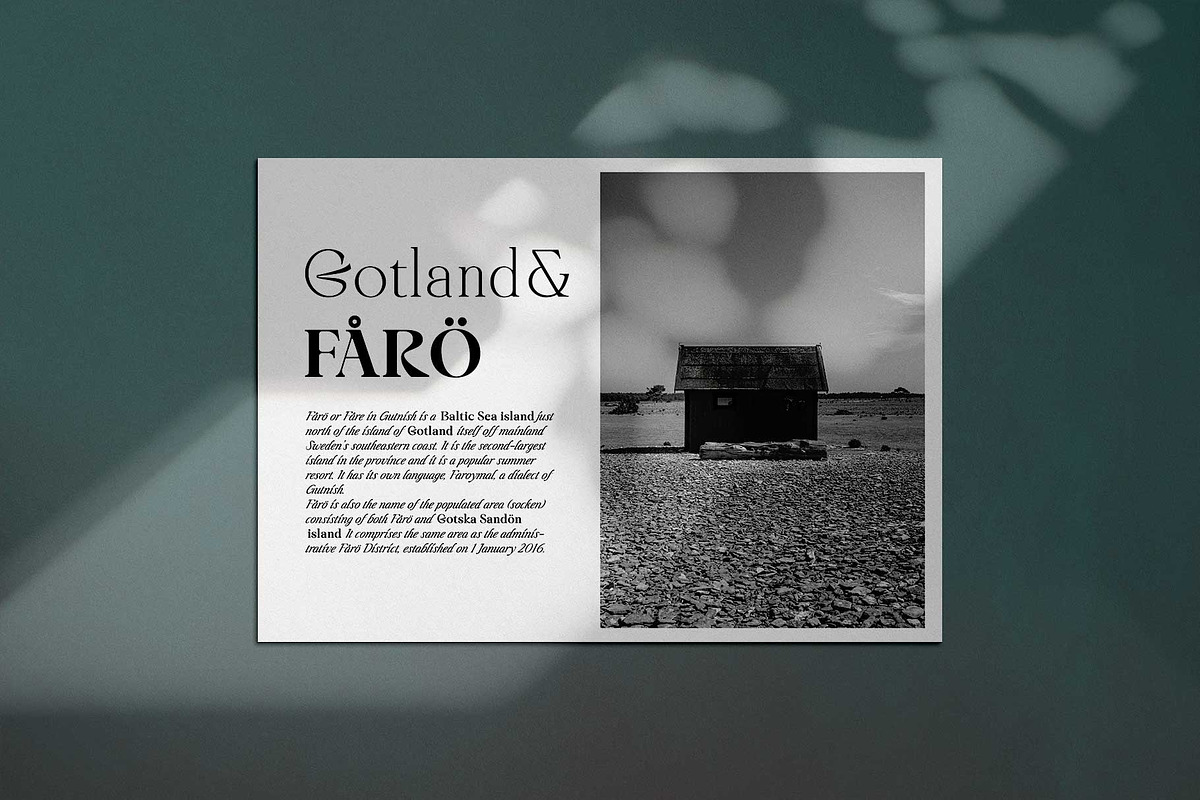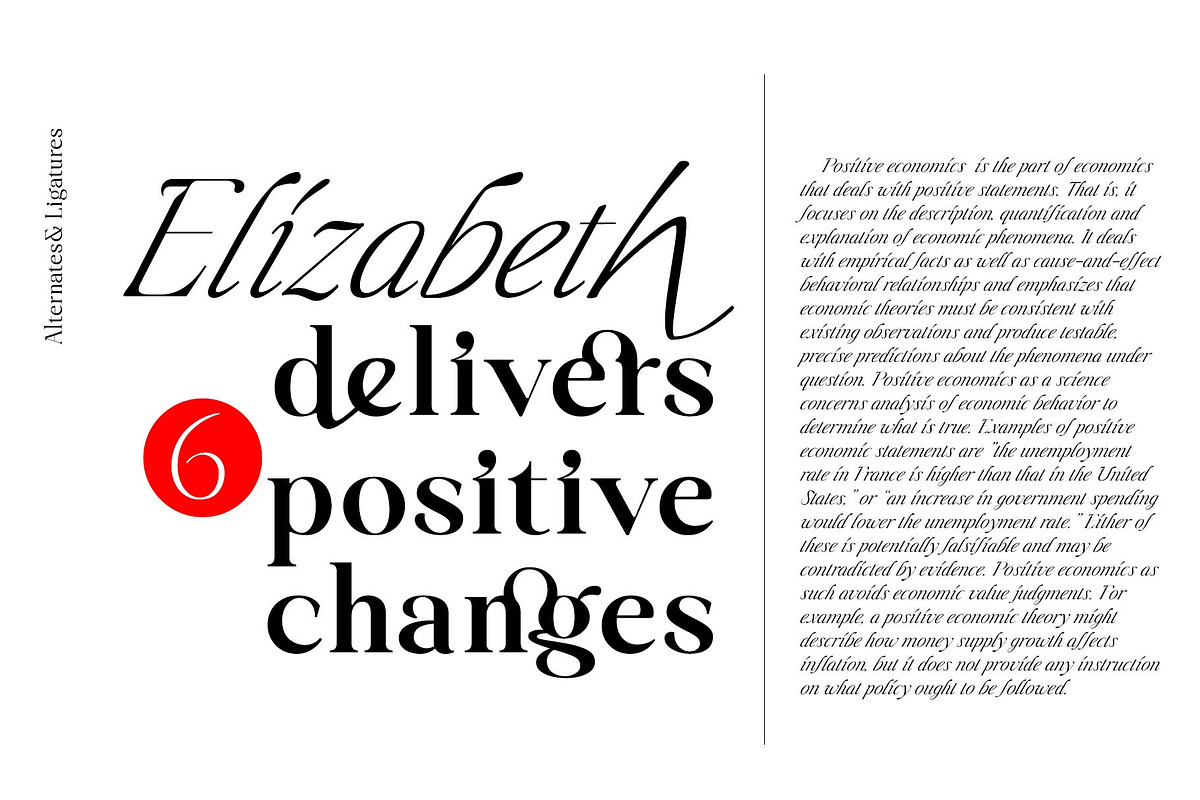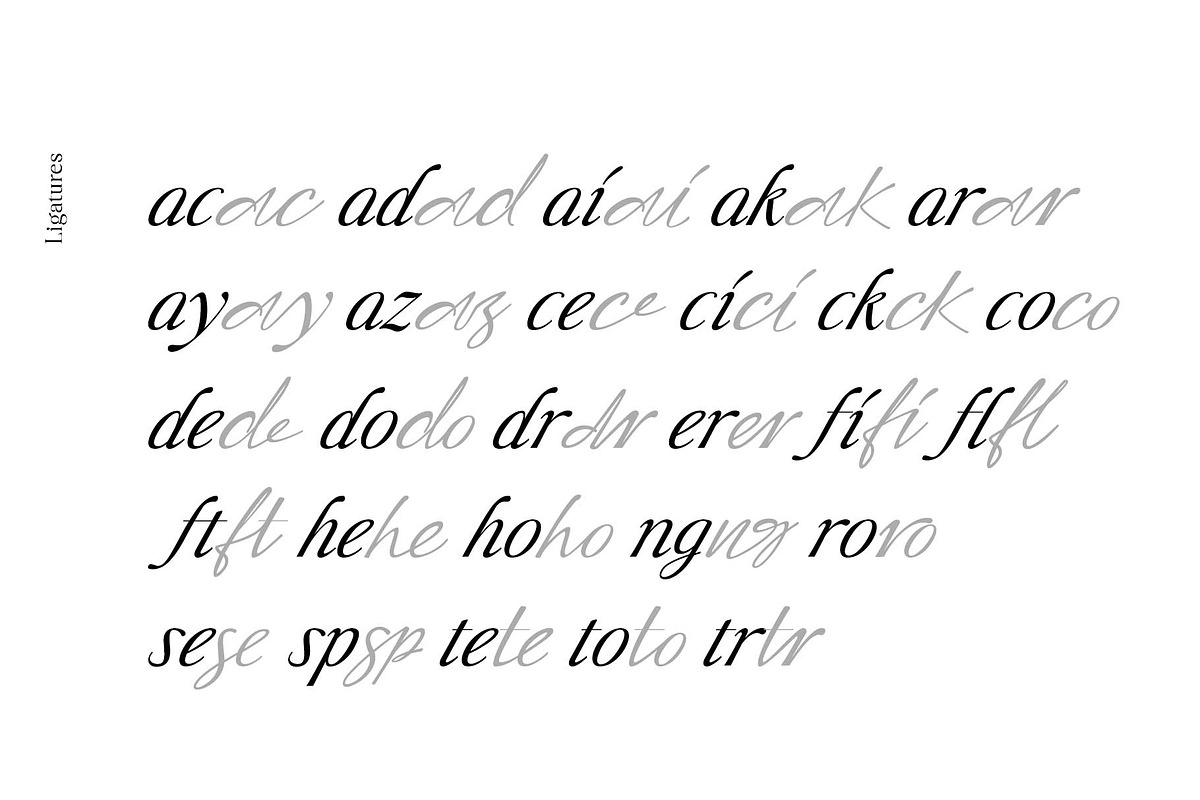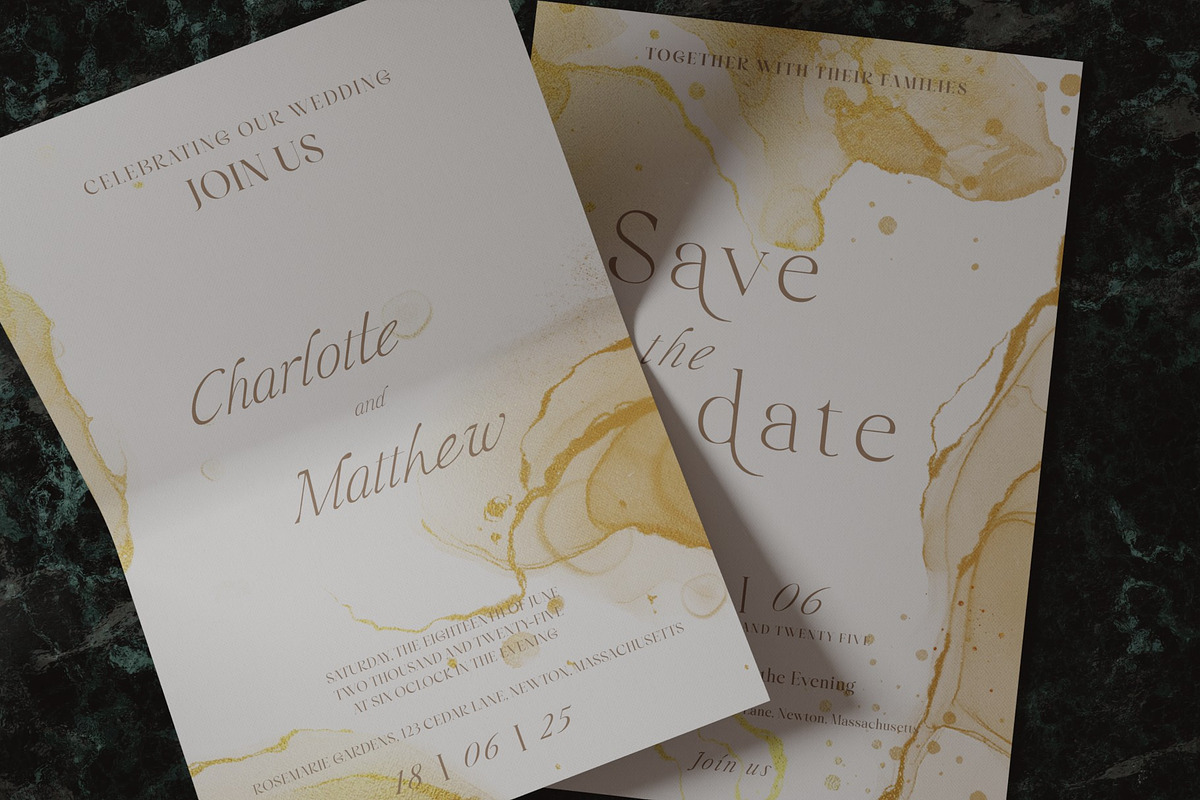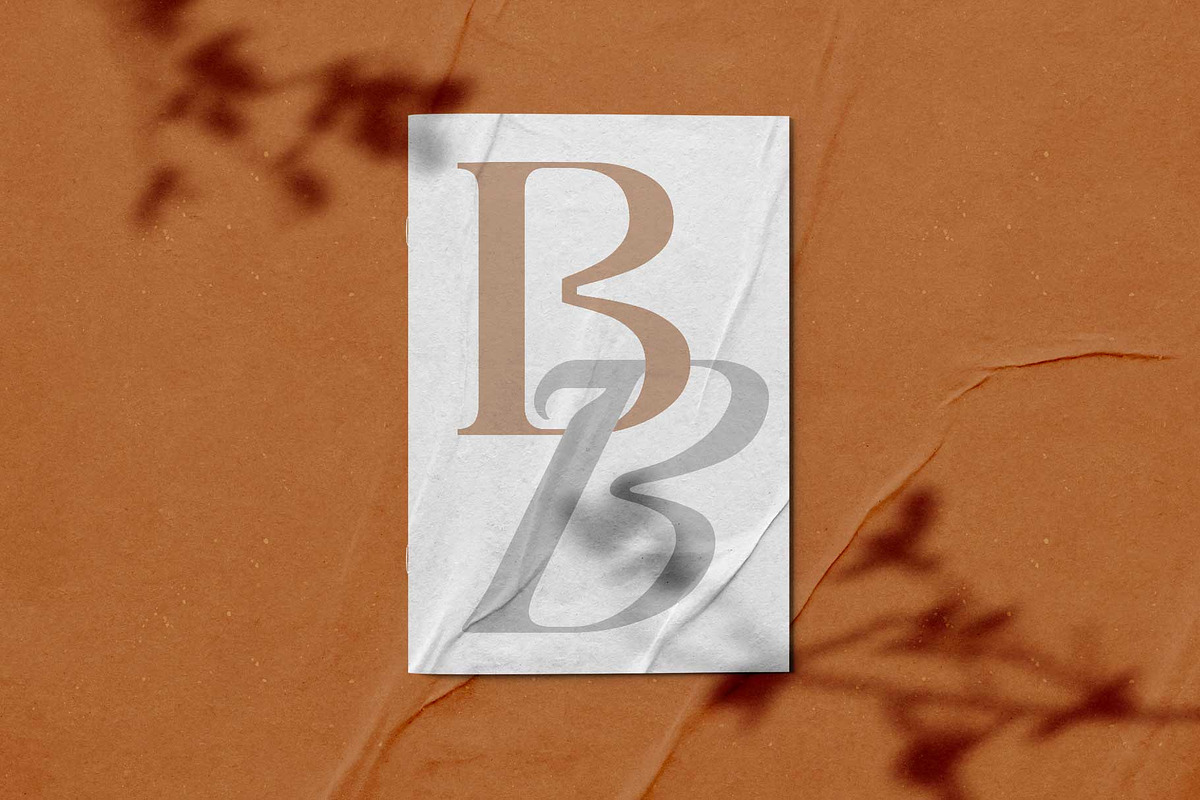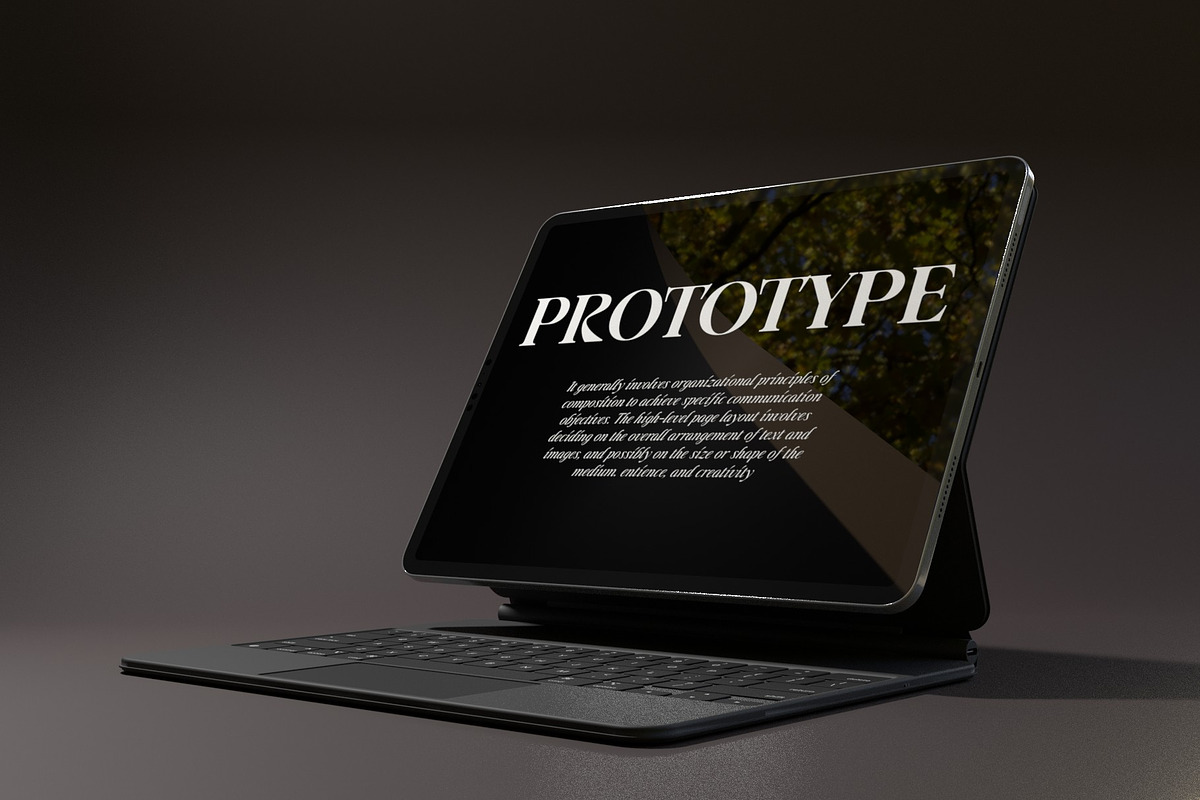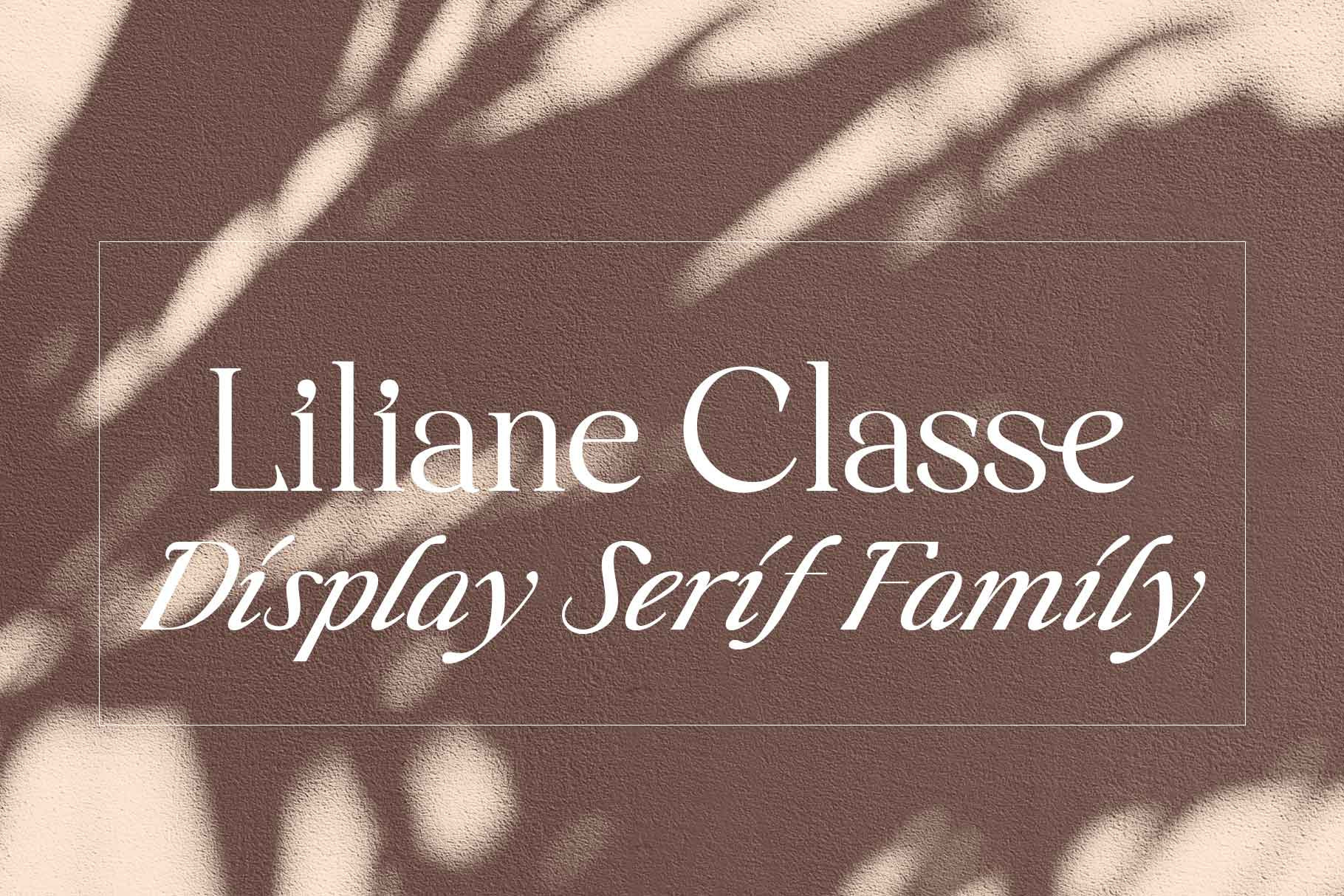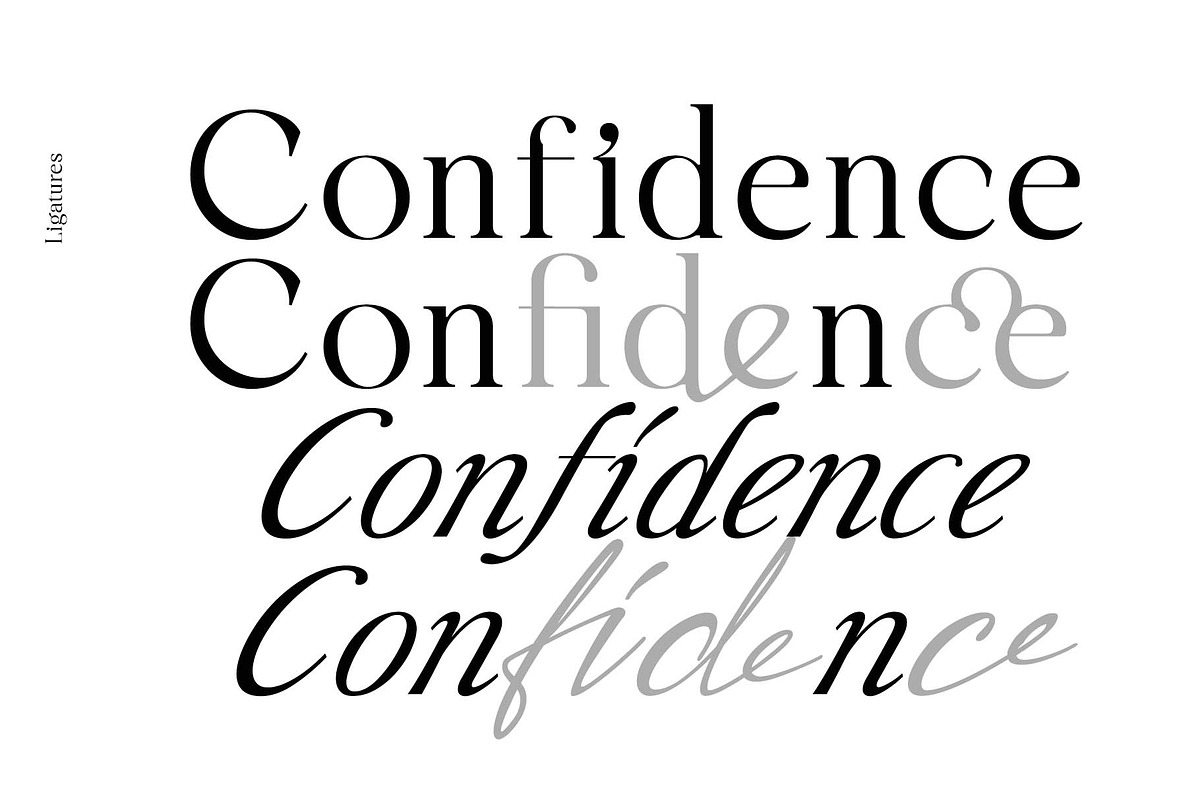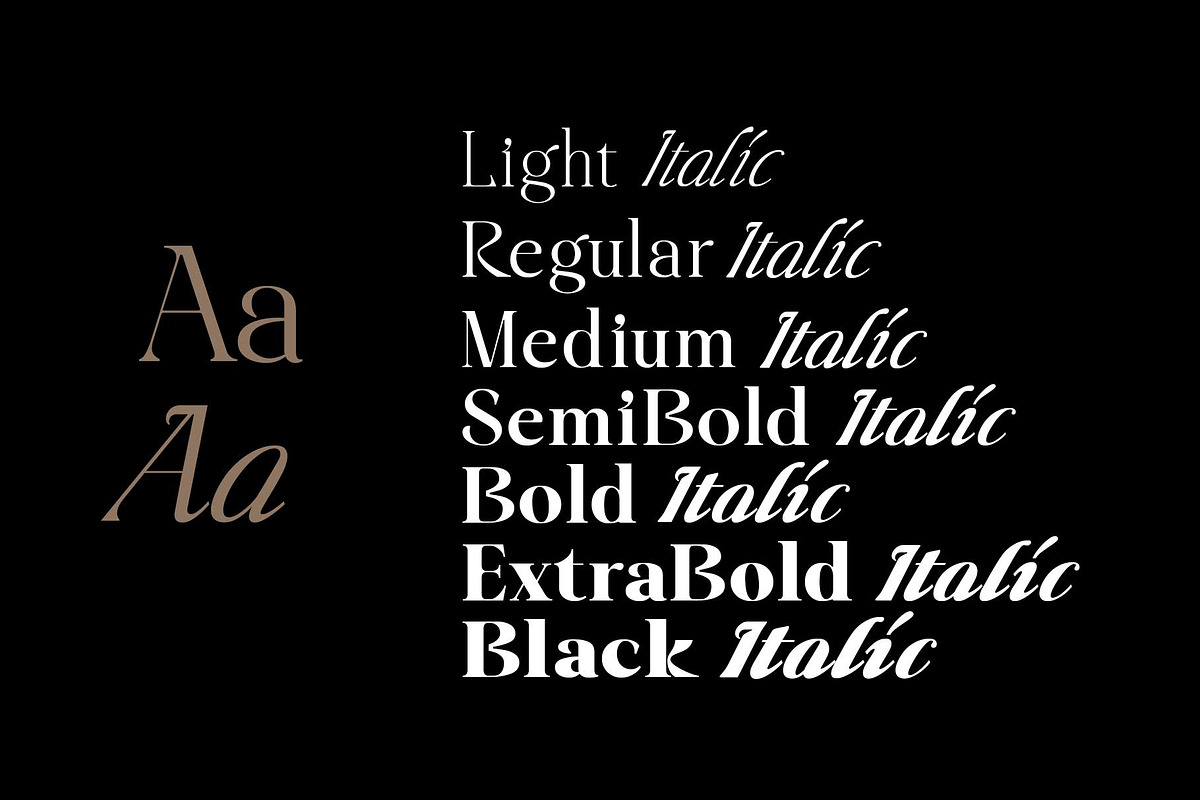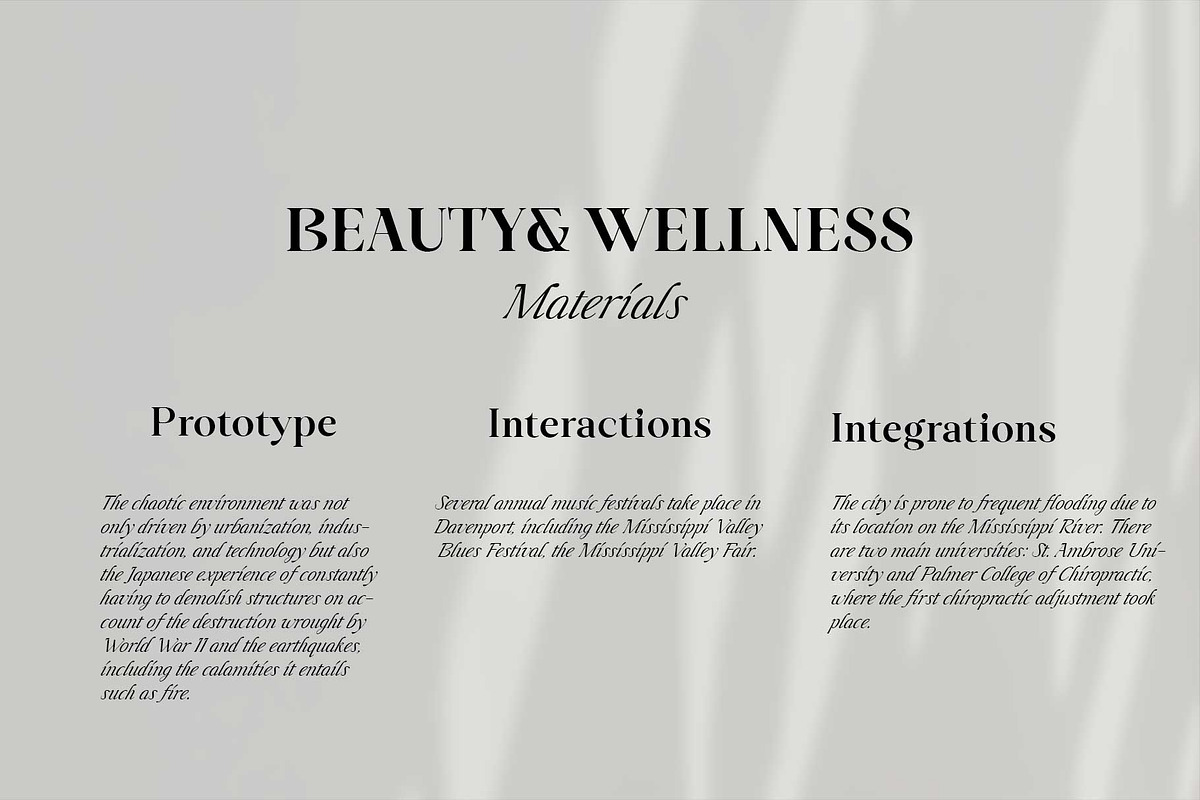
Liliane Classe Serif Font Family
This is a challenge for elegant but radical typography layouts.
Standard styles include classic and sophisticated serifs, while italic styles are designed with more adventurous handwritten touches.
This serif font family included a total of 14 styles, including 7 weights and separately created italics.
It can be the best choice for a unique and meaningful logo and branding design, and it will maintain a refined sense of unity.
Supported Languages
- Bulgarian, Bosnian, Catalan, Czech, Danish, German, English, Spanish, Estonian, Finnish, French, Irish, Croatian, Hungarian, Icelandic, Italian, Lithuanian, Latvian, Maltese, Dutch, Norwegian, Polish, Portuguese, Romanian, Russian(Basic Cyrillic), Slovak, Slovenian, Albanian, Swedish, Turkish
OpenType Features
- Discretionary Ligatures : ac, ad, ai, ak, ar, ay, az, ce, ci, ck, co, de, do, dr, er, ft, he, ho, ng, ro, se, sp, te, to, tr
- Standard Ligatures : fi, fl
- Alternates : a, d, h, i, k, n, u, z
- Oldstyle Figures
- Tabular Figures
- Fractions